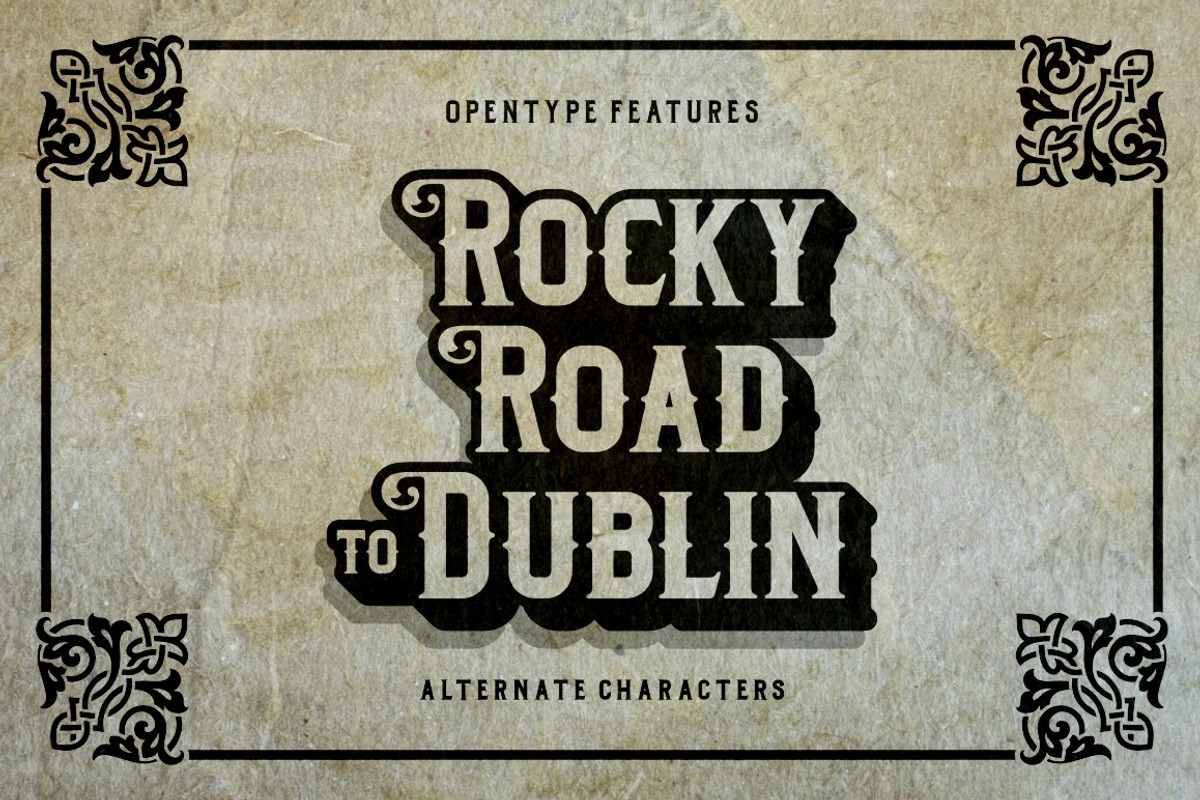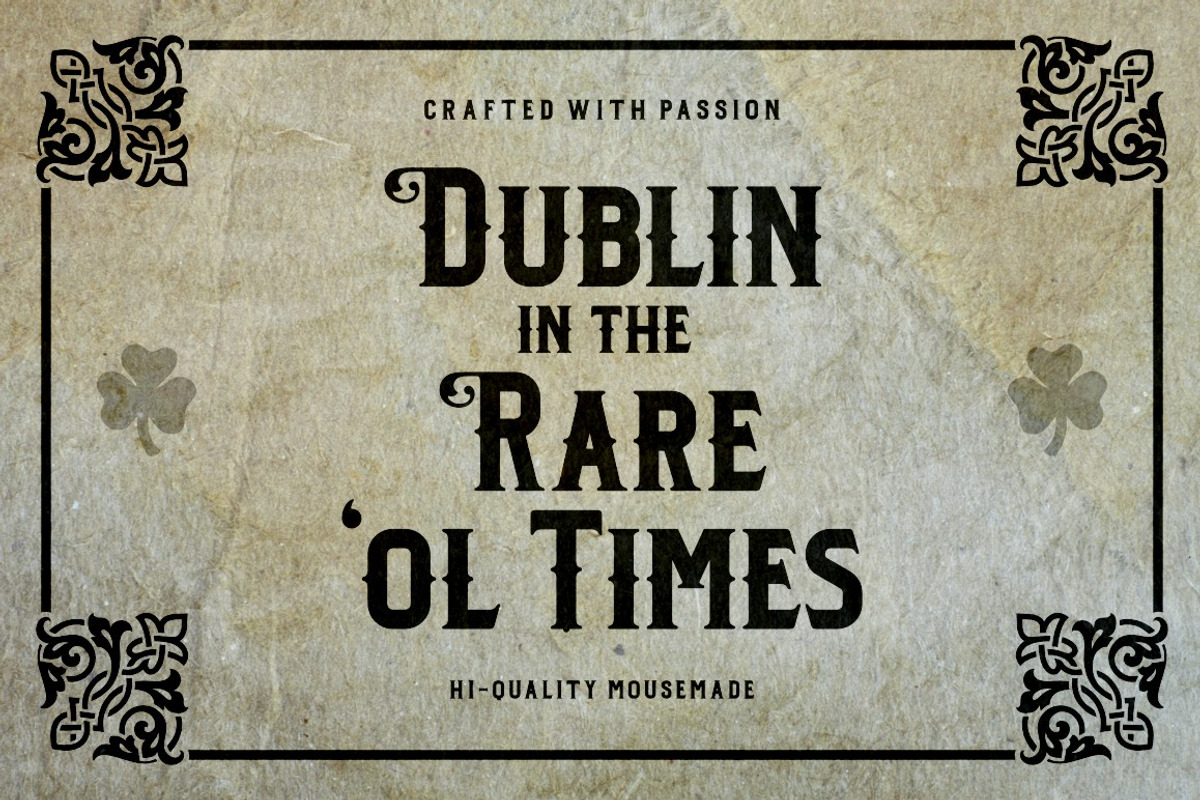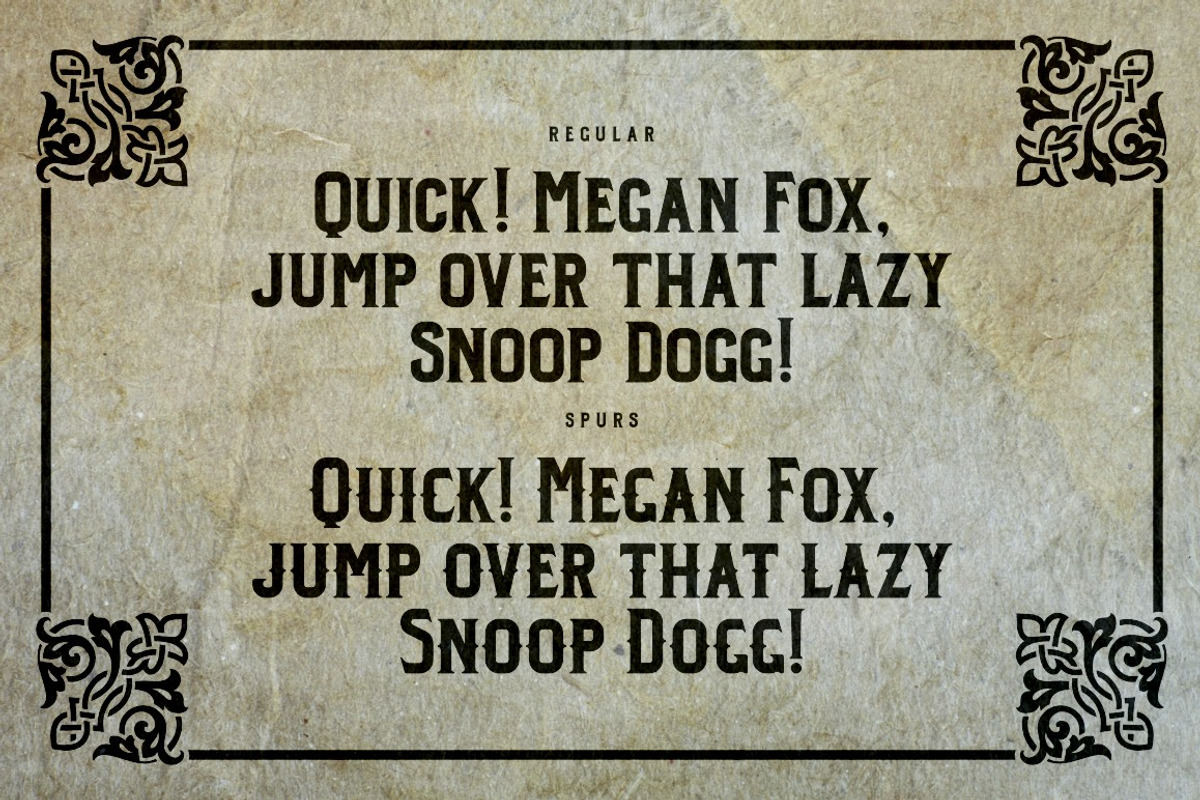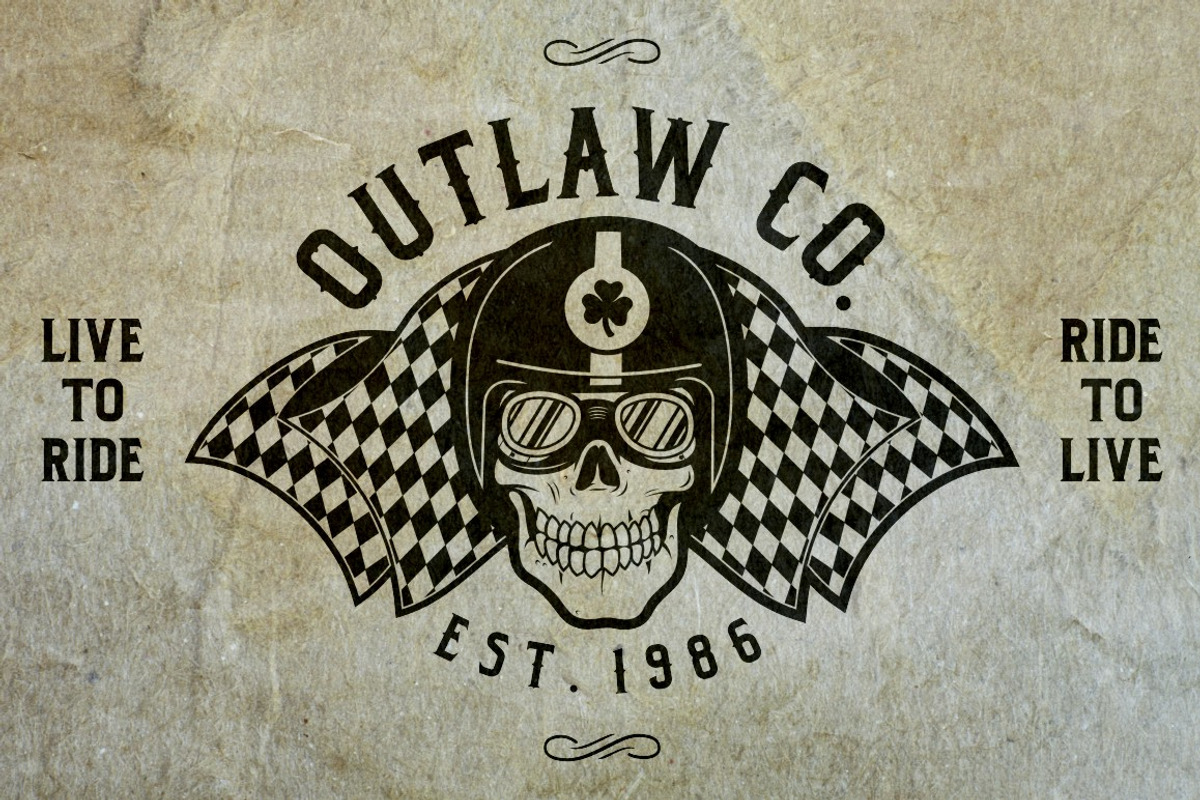
Dublin Typeface
Dublin Typeface by Twicolabs Fontdation is a font selected for branding, posters, packaging, typography.
- Dublin Regular
- Dublin Spurs Regular
Dublin Typeface by Twicolabs Fontdation fits naturally into Branding, posters, packaging, typography.